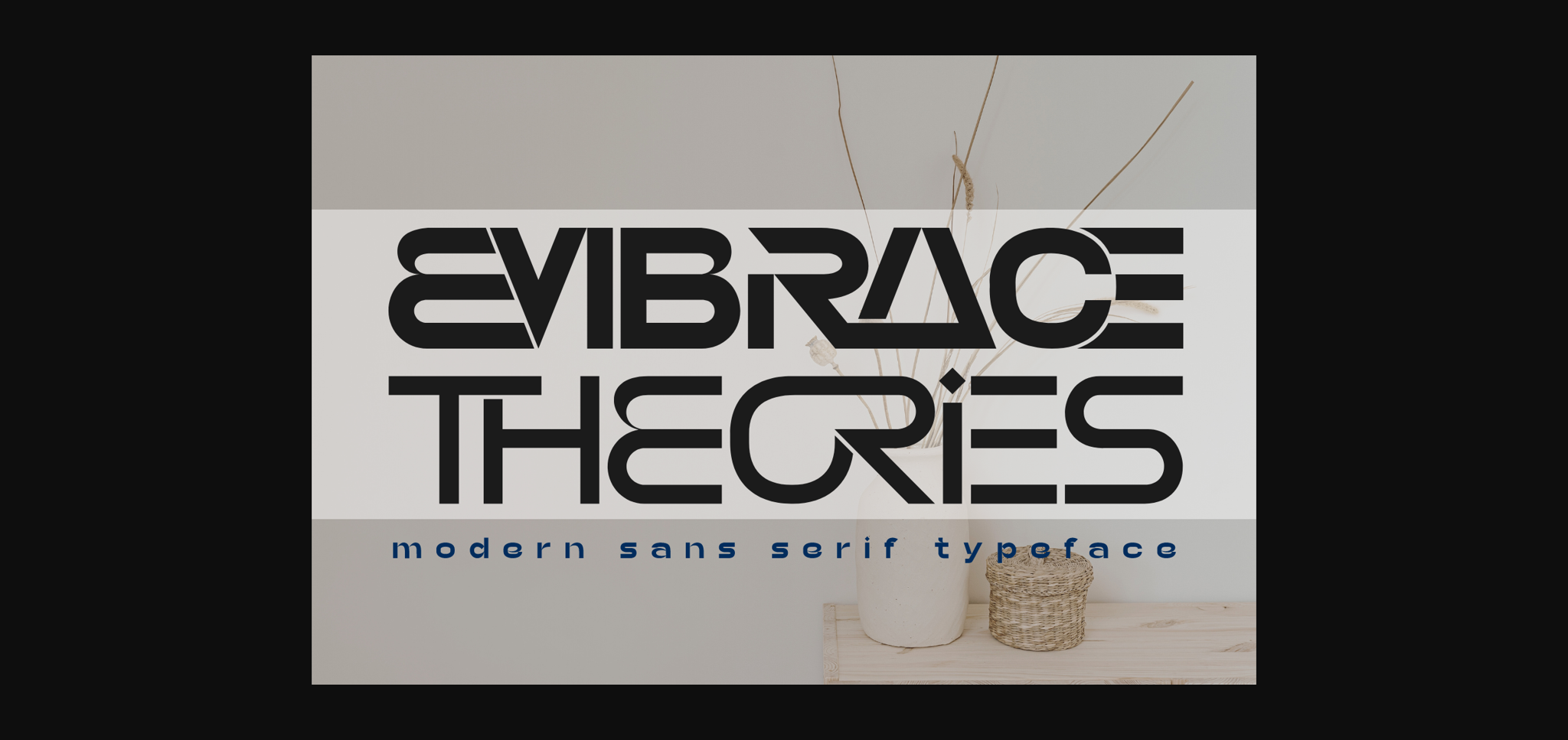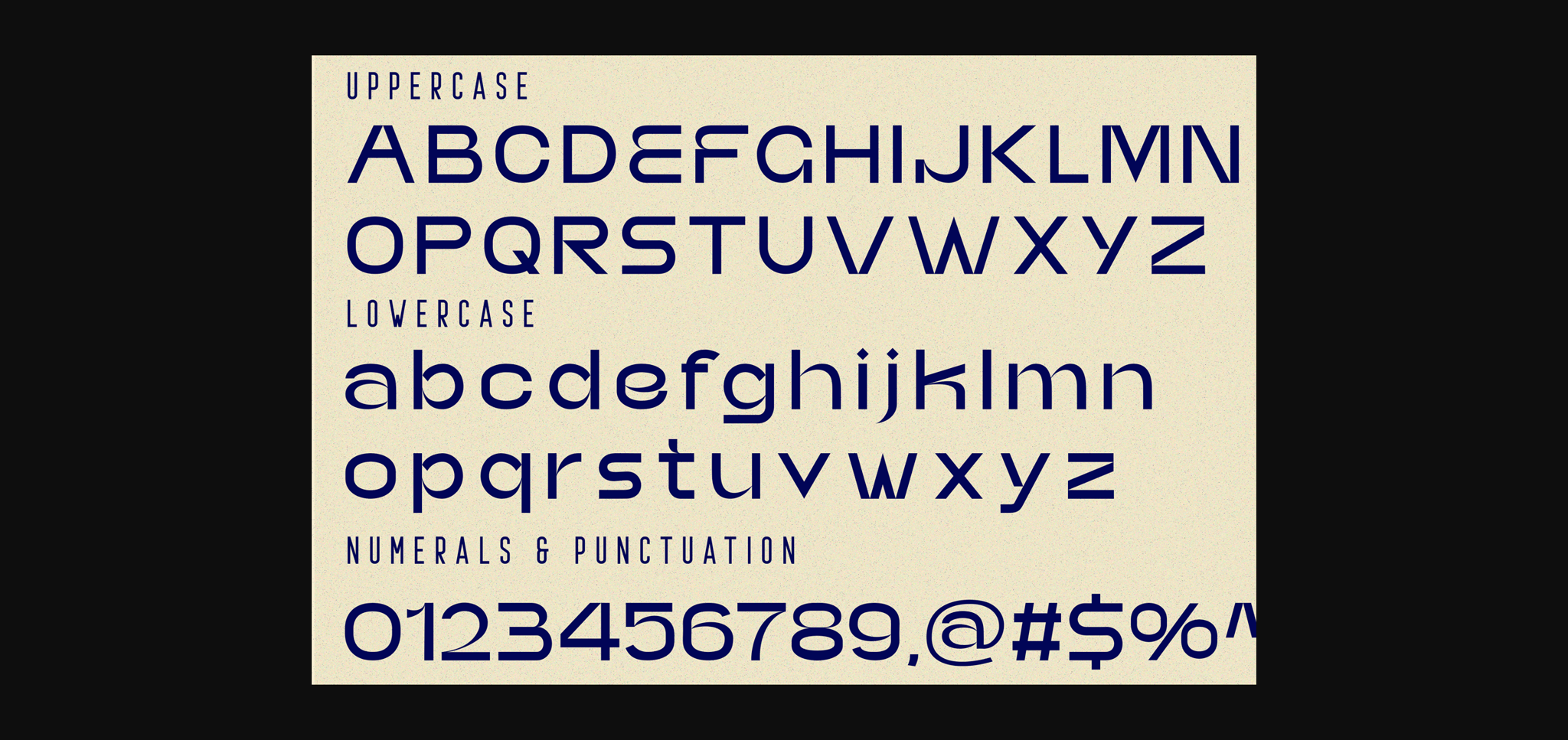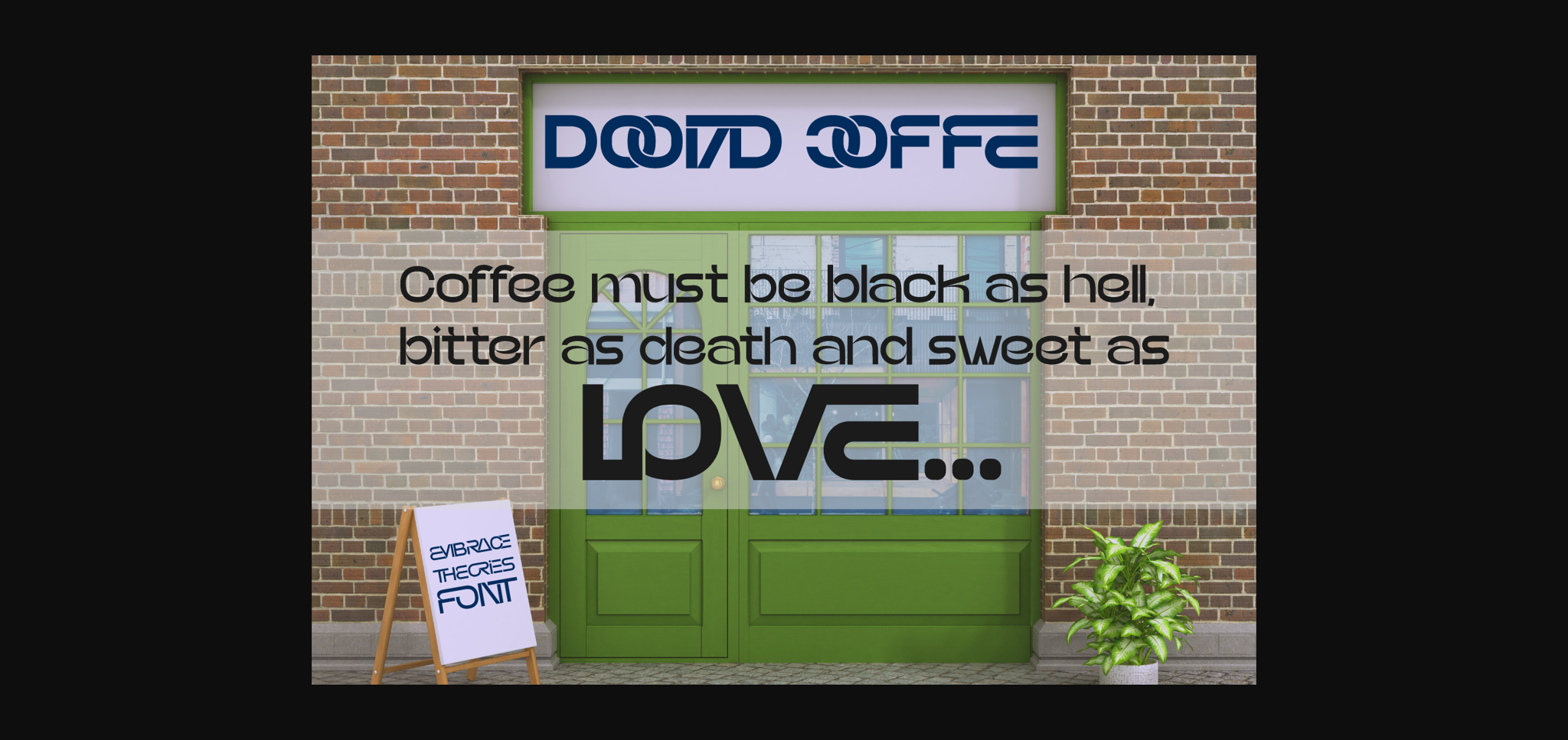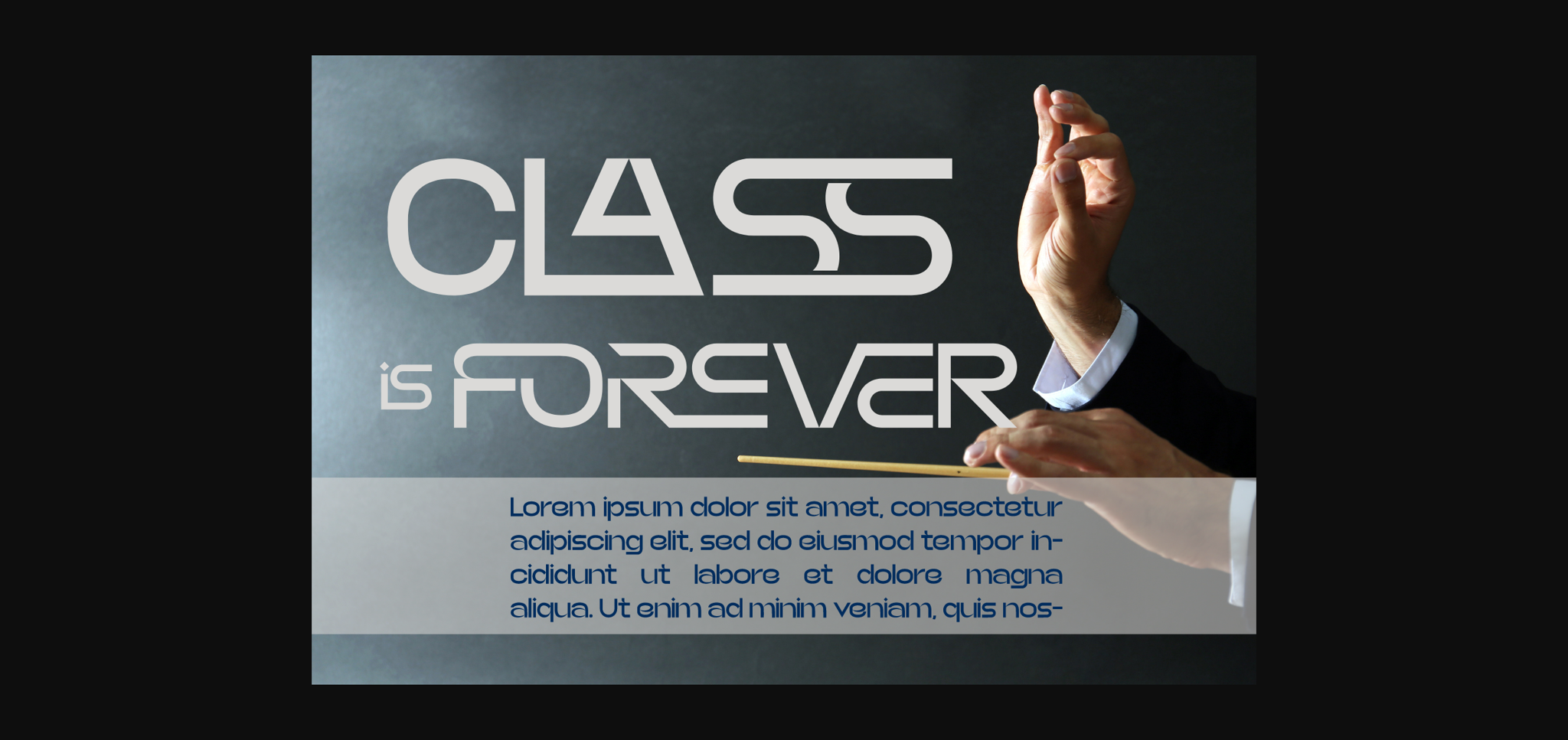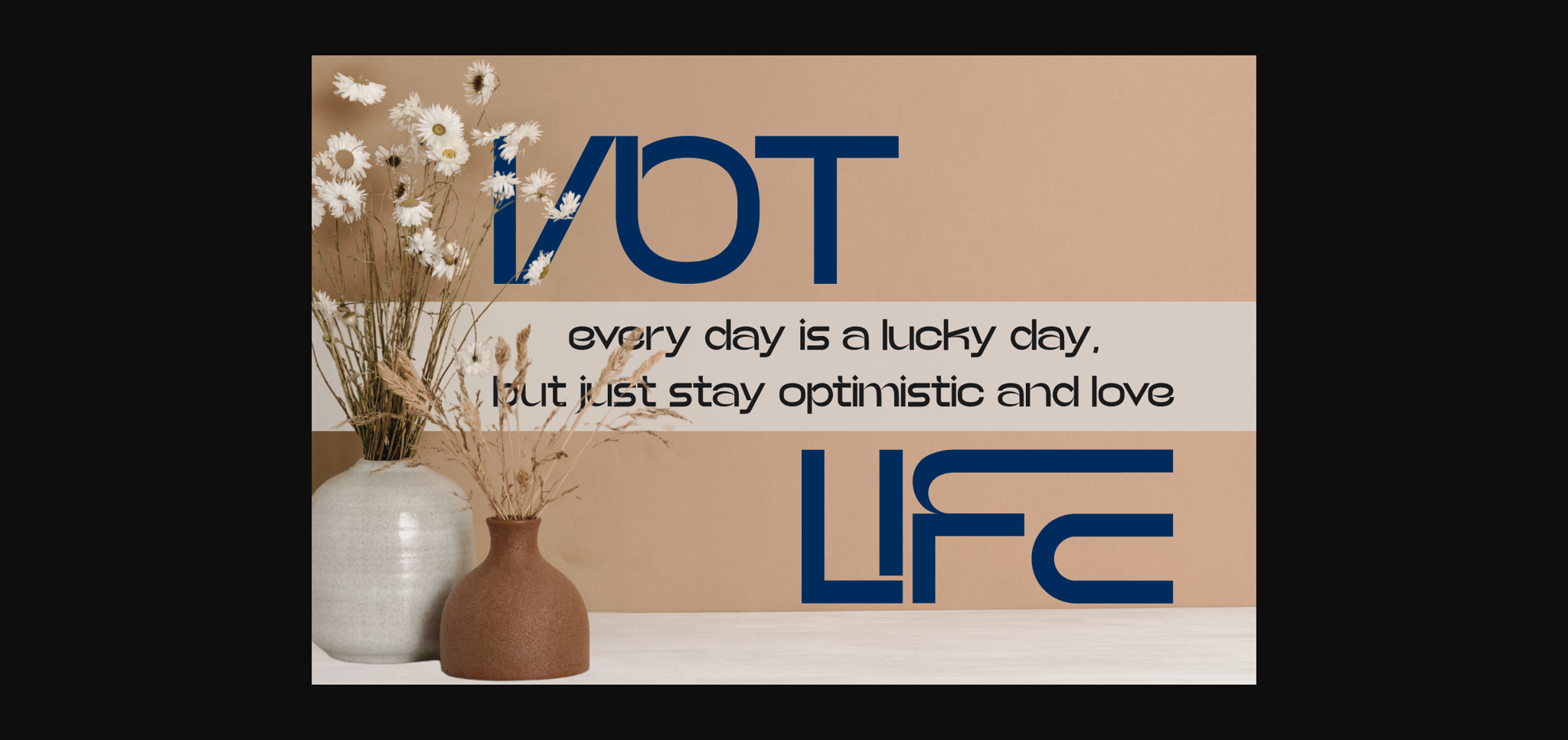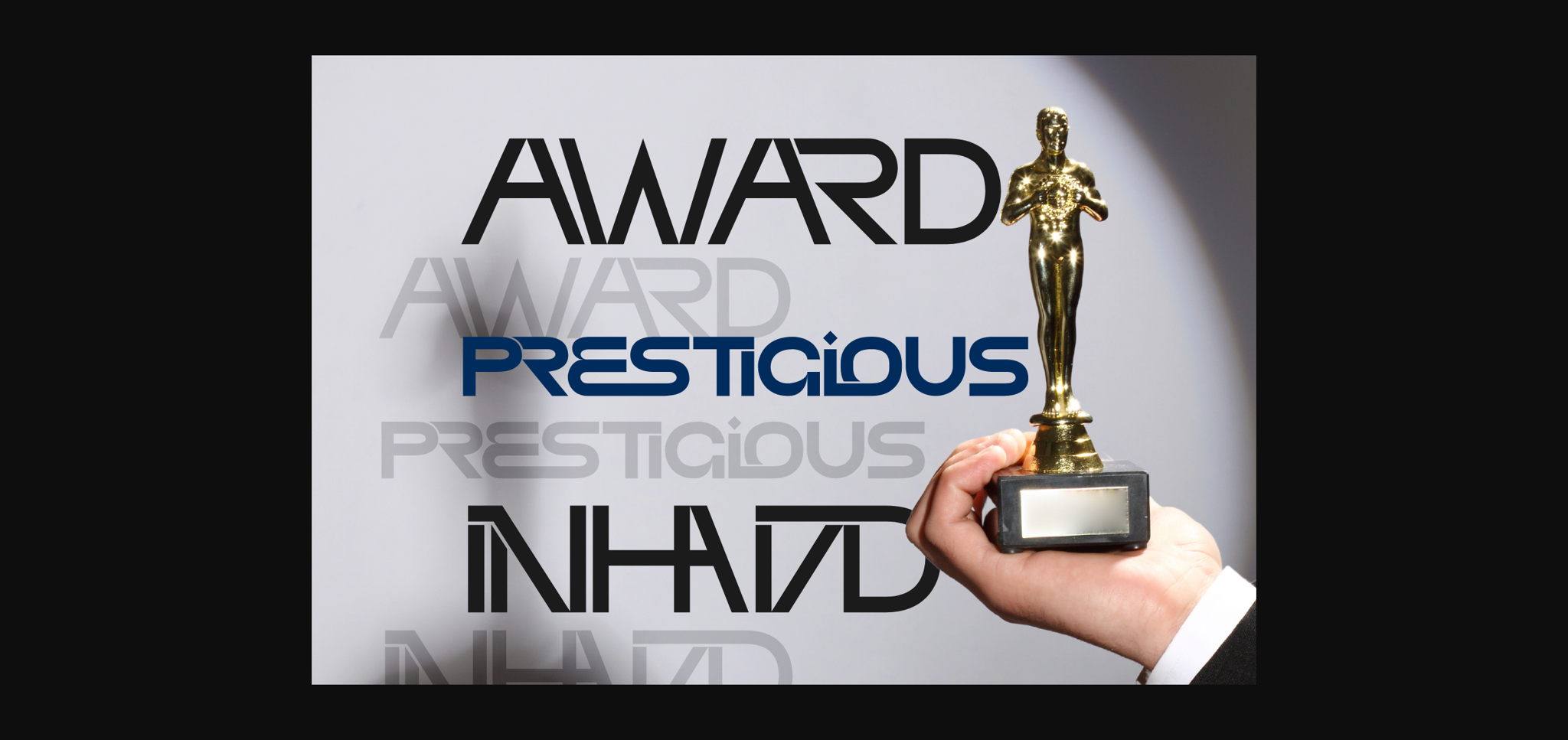
About Embrace Theories Font
Embrace Theories could be the right sans-serif typeface for your project! It has a charming and distinctive character in every shape. This versatile font is suitable for a variety of projects, whether you’re going for a classic, grotesque, or heritage design. Coming with clear lines and strong characteristics, this versatile font can be used for various design application such as branding and logo design, product packaging, website design, digital and print advertising, social media graphics, corporate presentations, magazine layouts and headlines, etc.